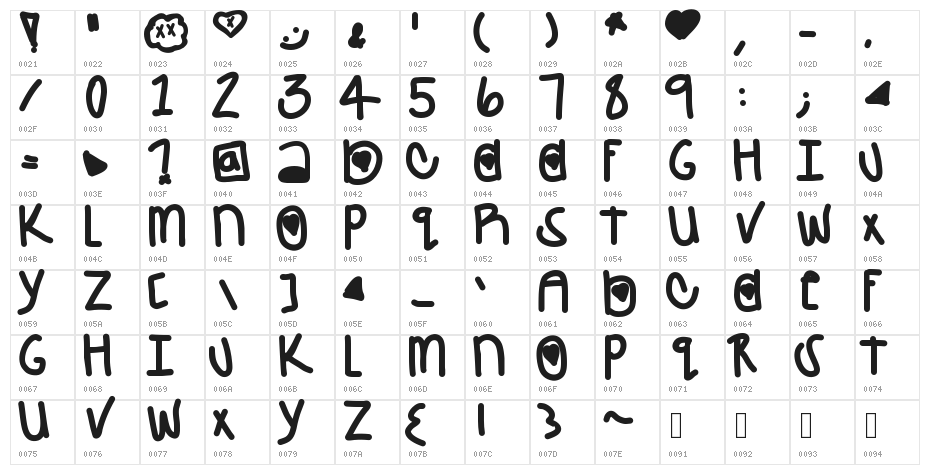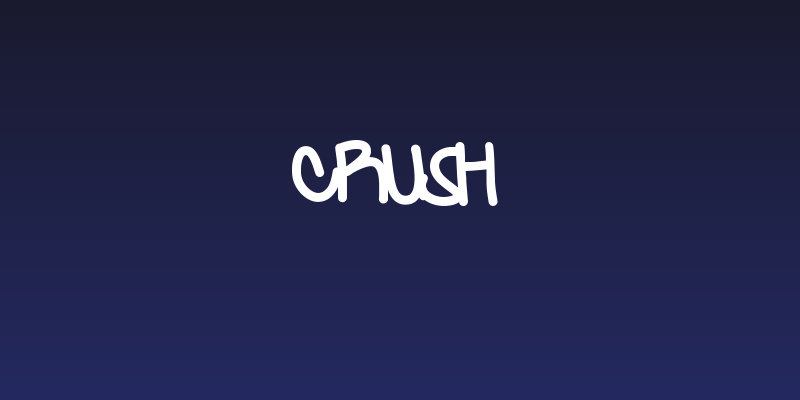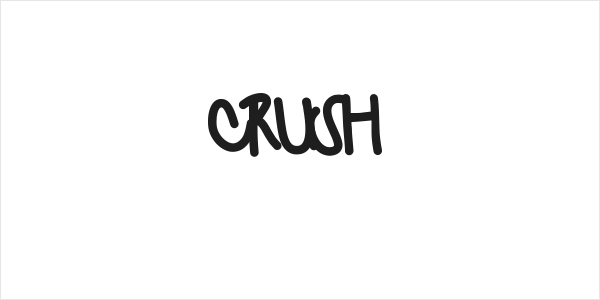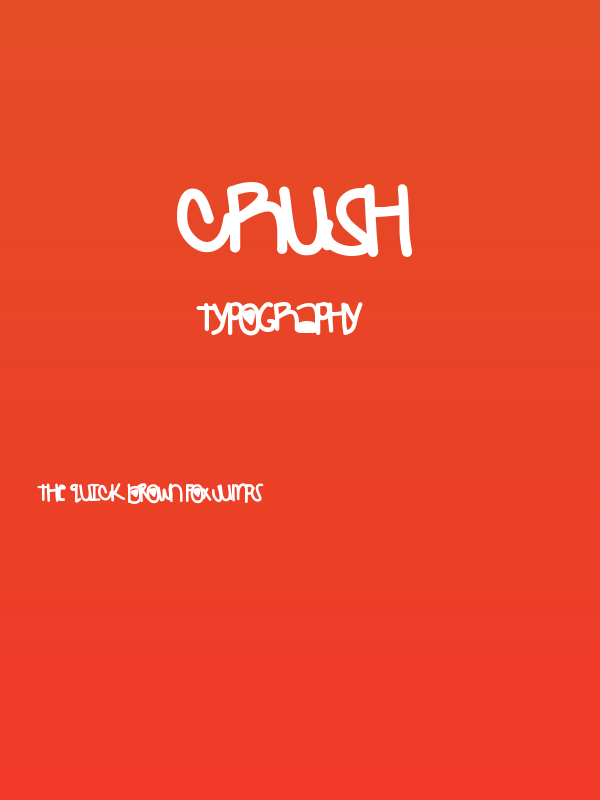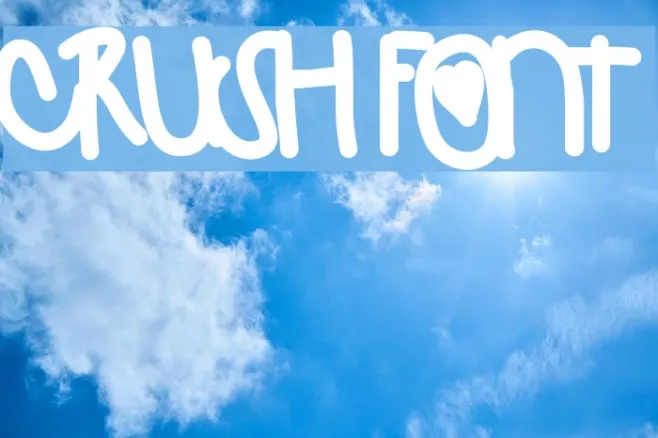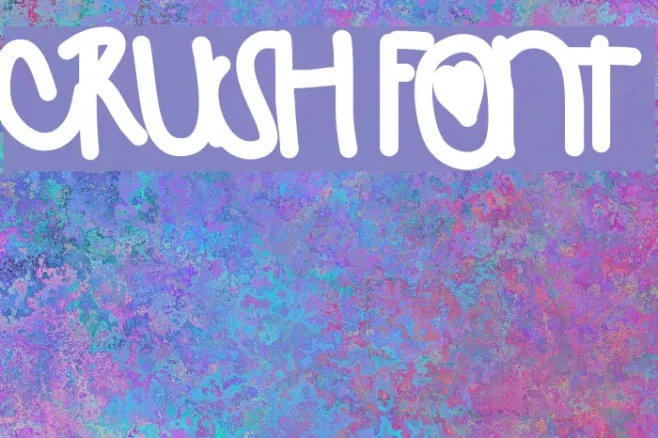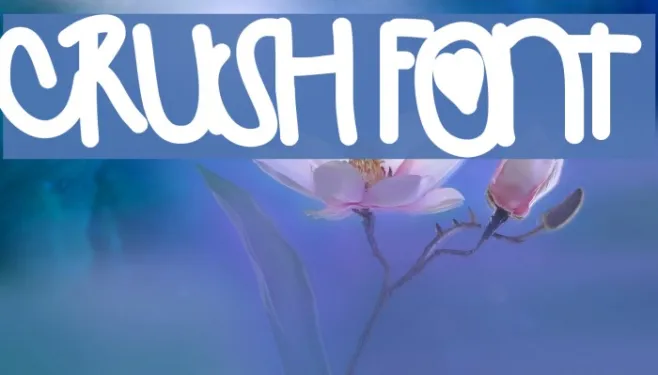
Crush Font
Crush Description
This font features a bold and expressive handwritten style, characterized by its thick strokes and playful, informal appearance. The letters are rounded and slightly irregular, giving it a casual and energetic feel. The uppercase and lowercase letters maintain a consistent style, with a noticeable emphasis on curves and loops. Numbers and special characters are equally bold and maintain the same playful aesthetic, making this font suitable for creative and informal projects. The overall look is dynamic and eye-catching, perfect for designs that require a personal touch.
| Proposed Projects | Ideal for greeting cards, posters, children's books, and playful branding. |